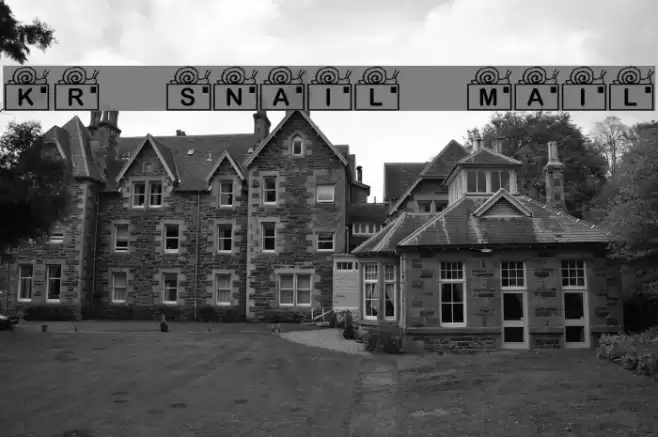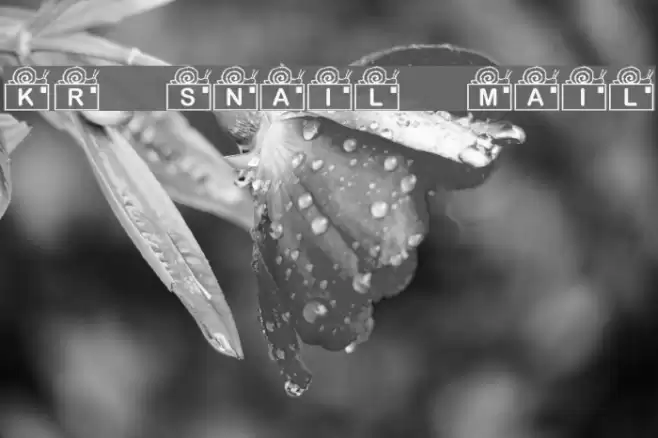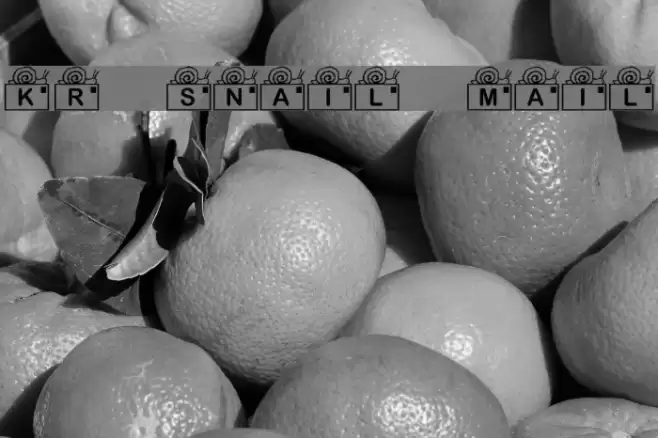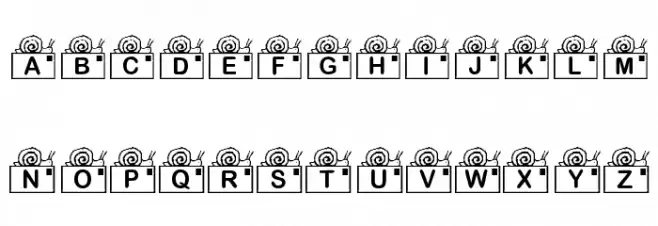
KR Snail Mail Font
KR Snail Mail Description
This playful and whimsical font features each letter enclosed in a square with a charming snail illustration perched on top. The letters are bold and uppercase, providing a strong contrast against the detailed snail design. The font exudes a sense of fun and creativity, making it ideal for projects that aim to capture attention with a unique and quirky style. The consistent use of the snail motif across all characters adds a cohesive and thematic element, perfect for children's materials or lighthearted branding.
A whimsical font with bold letters and snail illustrations, perfect for playful designs from Uncategorized fonts.
- Proposed Projects: Ideal for children's books, playful branding, greeting cards, and educational materials.
- Overall Style: Playful, Whimsical
- Use Case: Headlines, Logos, Decorative text